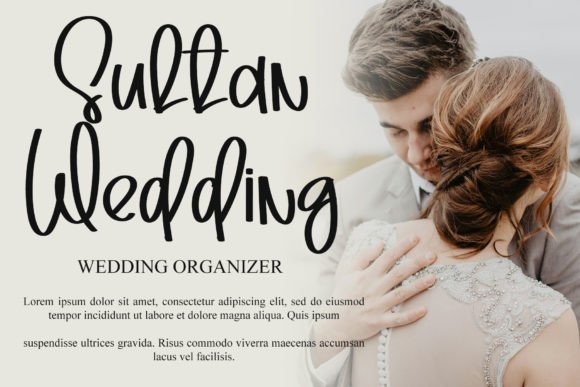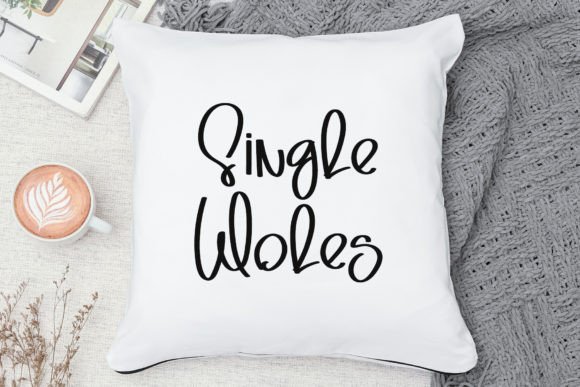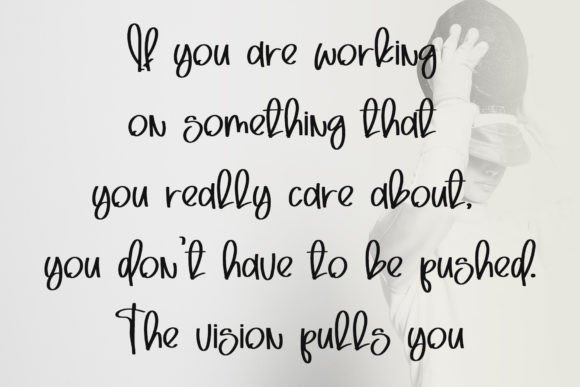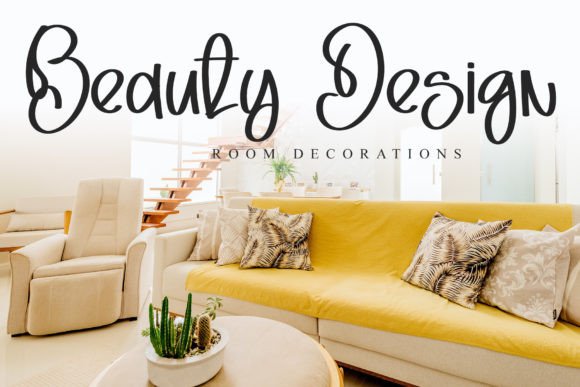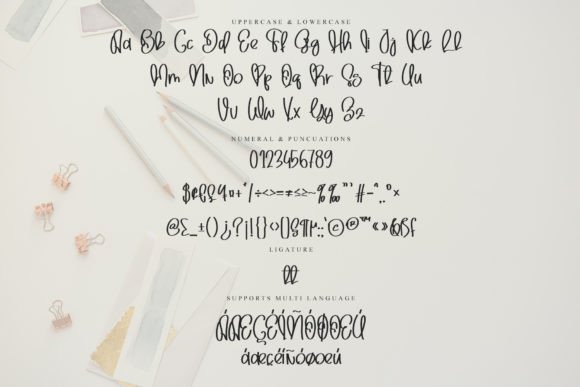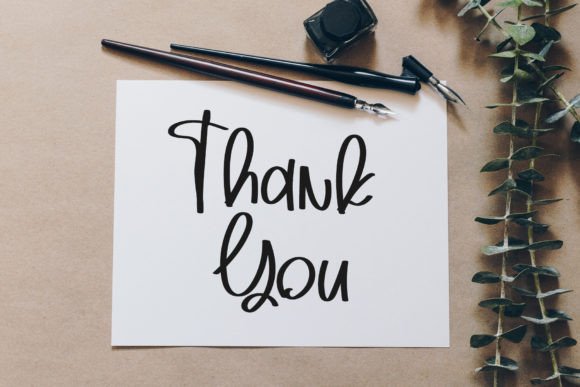
Discover the Best Father Font for Your Cheerful Designs
Are you looking for a font that can add a playful touch to your designs? Look no further than the Best Father font! This fun and quirky handwritten font is perfect for use on cheerful topics, making it an ideal choice for children’s themed designs, especially when combined with bright colors.
What Makes Best Father Font So Special?
The Best Father font is a unique and creative typeface that can add a personal touch to your designs. Its handwritten style gives it a friendly and approachable feel, making it perfect for designs that require a playful and cheerful tone. Whether you’re creating a children’s book, a kids’ party invitation, or a fun and colorful poster, this font is sure to make your design stand out.
Key Features of Best Father Font
- Handwritten style: The Best Father font has a unique handwritten style that gives it a personal and friendly feel.
- PUA encoded: This font is PUA encoded, which means you can access all of the amazing glyphs and ligatures with ease.
- Cheerful and playful: The font is perfect for use on cheerful topics, making it ideal for children’s themed designs.
- Supports multiple languages: The Best Father font supports multiple languages, making it a versatile choice for designers.
Use Cases for Best Father Font
The Best Father font is a versatile typeface that can be used in a variety of design projects. Here are some use cases where this font can shine:
- Children’s book designs: The font’s playful and cheerful style makes it perfect for use in children’s book designs.
- Kids’ party invitations: The Best Father font can add a fun and playful touch to kids’ party invitations.
- Colorful posters: The font’s bright and cheerful style makes it ideal for use in colorful posters and flyers.
- Crafting and DIY projects: The Best Father font can be used in crafting and DIY projects, such as making cards, gift tags, and other paper crafts.
Tips for Using Best Father Font
Here are some tips for using the Best Father font in your designs:
- Pair it with bright colors: The Best Father font looks best when paired with bright and cheerful colors.
- Use it for headings and titles: The font’s playful style makes it perfect for use in headings and titles.
- Experiment with different sizes: The Best Father font can be used in a variety of sizes, from small to large.
- Use it in combination with other fonts: The font can be used in combination with other fonts to create a unique and creative design.
The Best Father font is a fun and quirky handwritten font that is perfect for use on cheerful topics. Its unique style and PUA encoding make it a versatile choice for designers. With its wide range of use cases and tips for use, this font is sure to become a favorite in your design arsenal. So why wait? Download the Best Father font today and start creating your own cheerful designs!